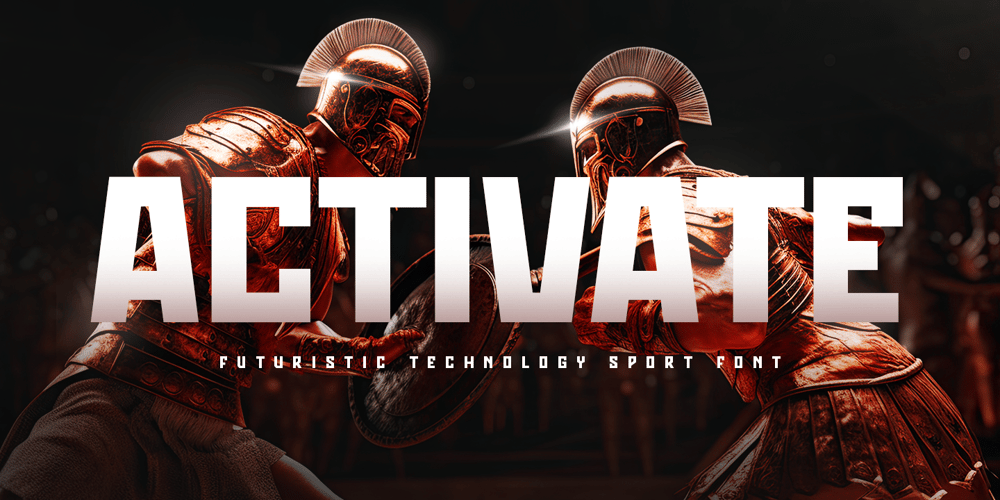
Activate Font Family was designed by Zamroni Hamzah and published by Sensatype Studio. Activate contains 1 styles and family package options. Activate is a Futuristic Technology Sport Font that created special for Logo, Film Title, Action Poster, Match Design and more stand out typography for sport, futuristic and action. It’s so perfect to add your style and headline overview for sport, technology, actions, and fighting theme. And specially for this font, we crafted for bold action style and modern feels so enjoy to create any project that will show your main idea out.Activate Futuristic Technology Sport Font ready with: Creative characters prepared to get best results 4 files format already Preview as a inspirations that you can do with Activate font Ready with All Uppercase characters Wish you enjoy our font. ๐